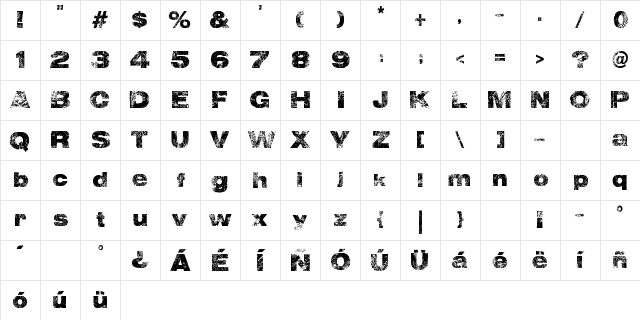
Wall IT - LJ-Design Studios Bold
Designer: Luis Jaramillo
Design Context for Wall IT - LJ-Design Studios
Wall IT - LJ-Design Studios is a composed and adaptable typeface that performs quietly and consistently across a wide range of design contexts. Its bold stroke weight gives it real presence on the page.